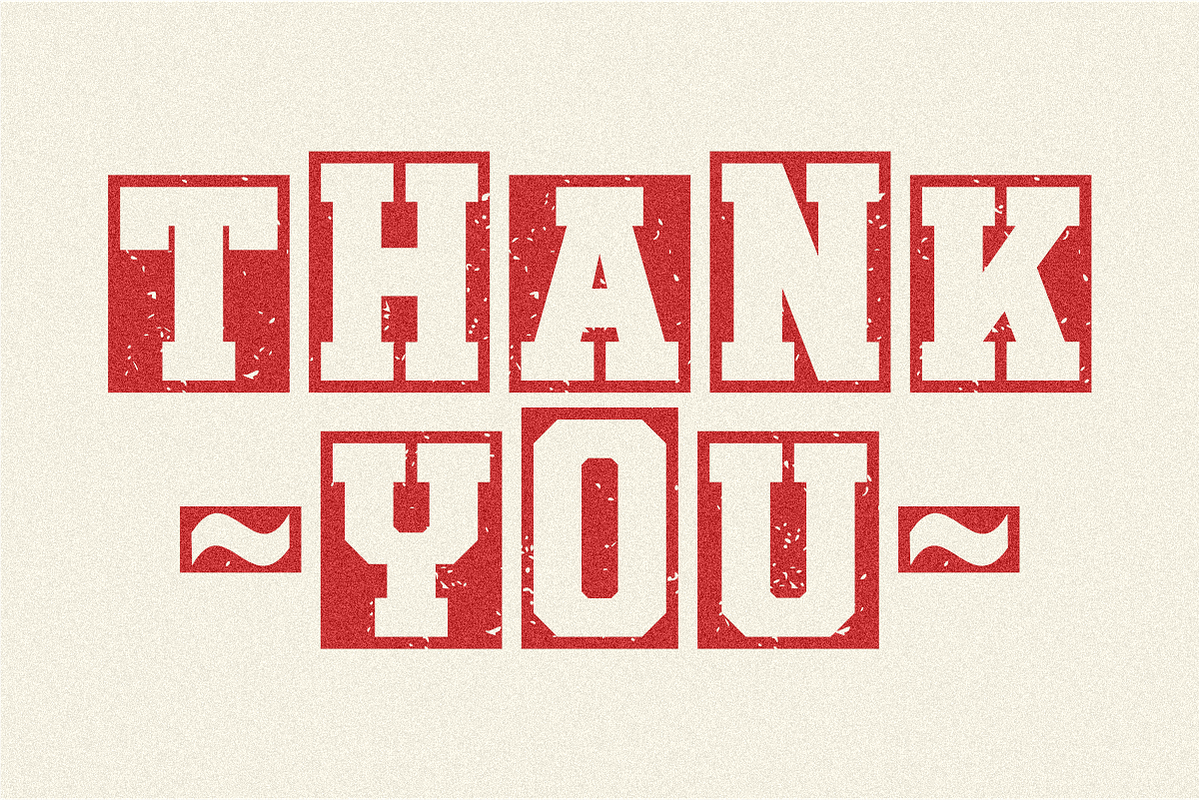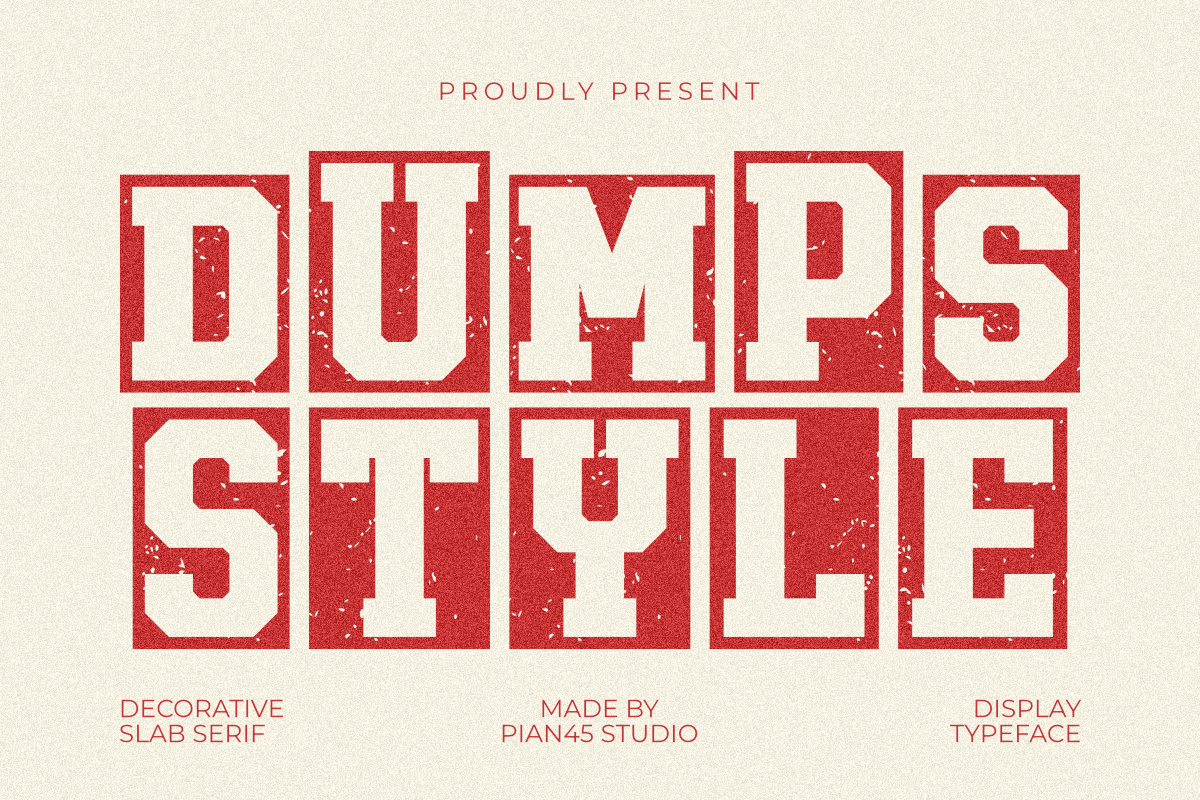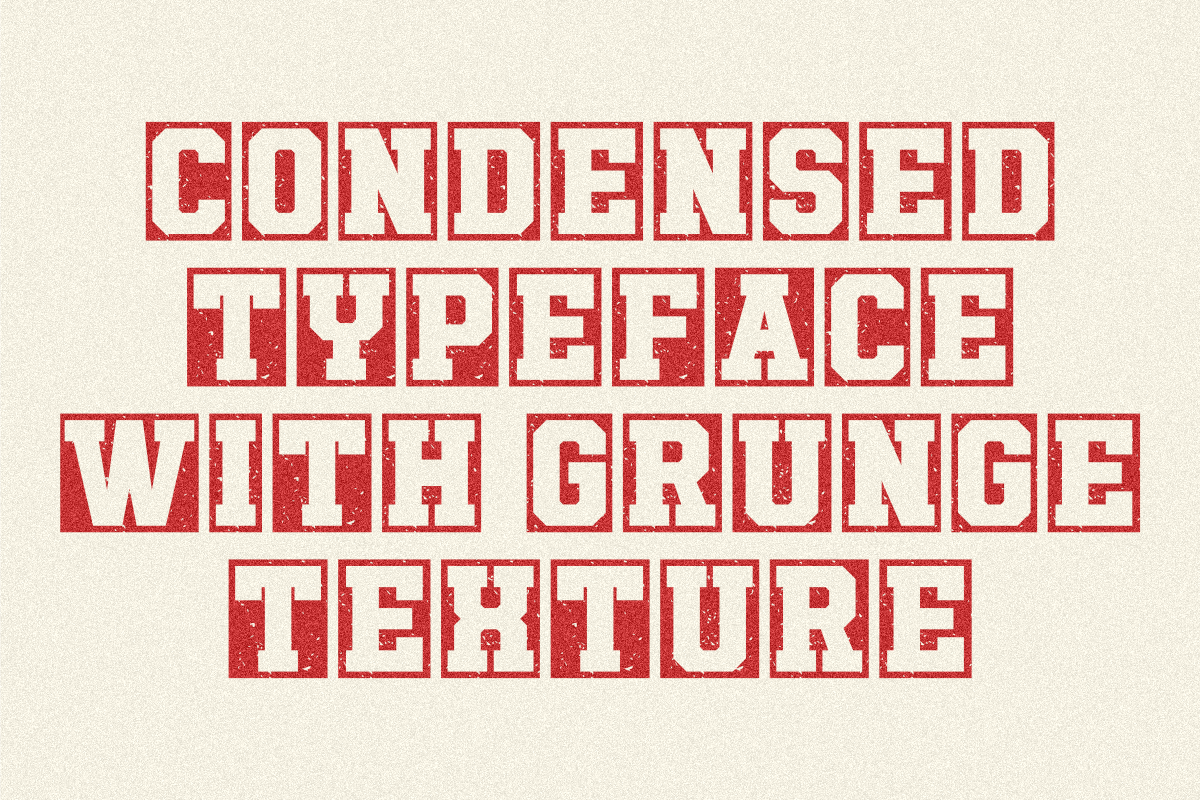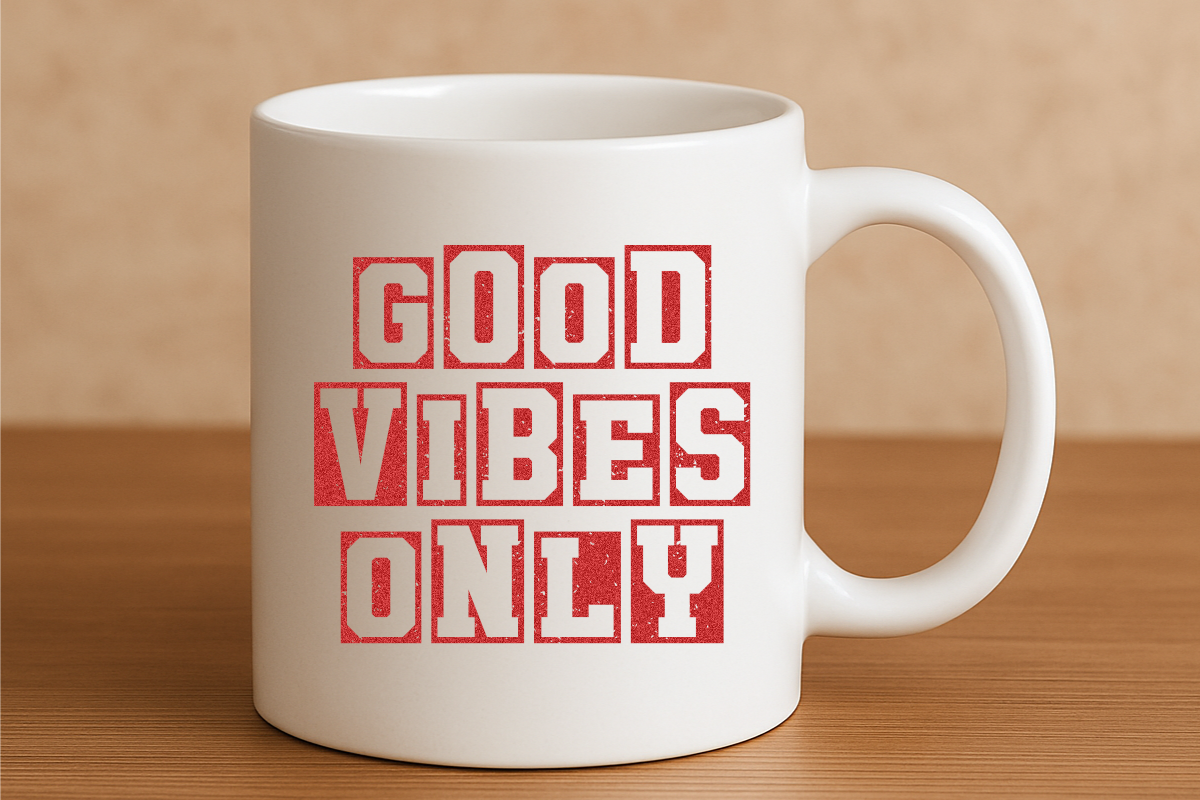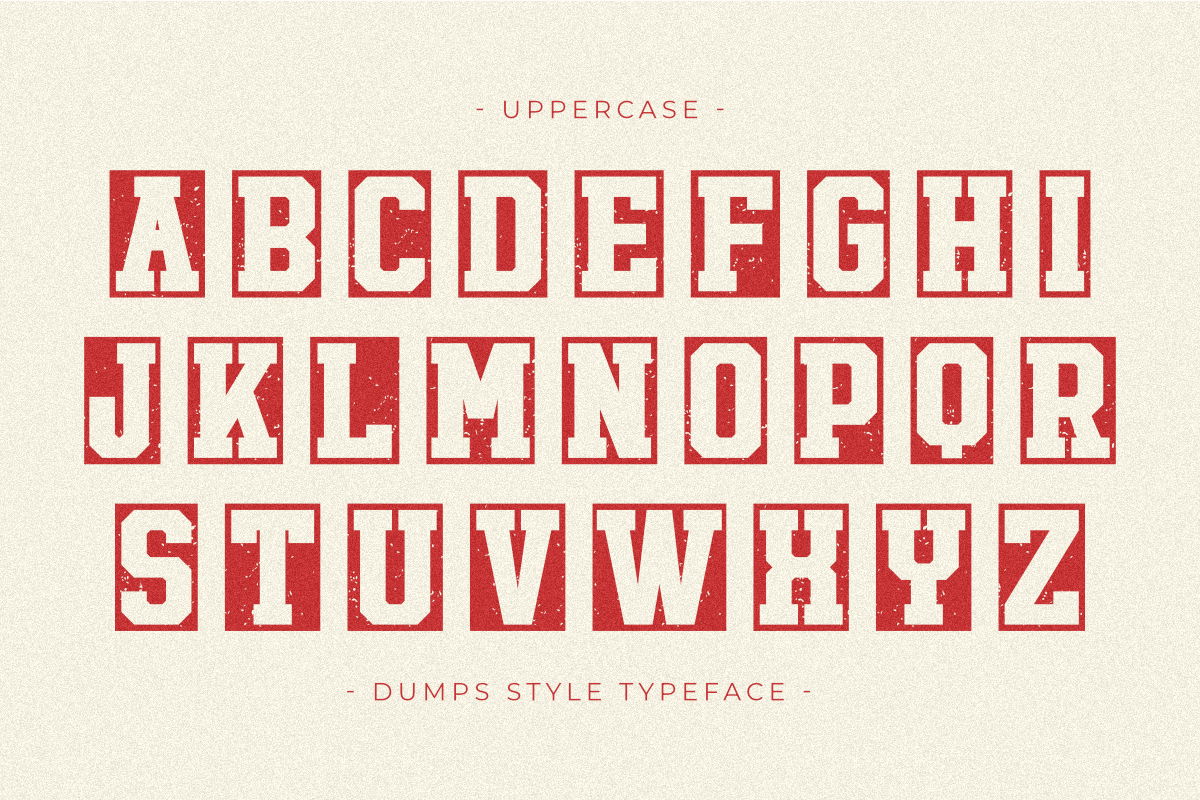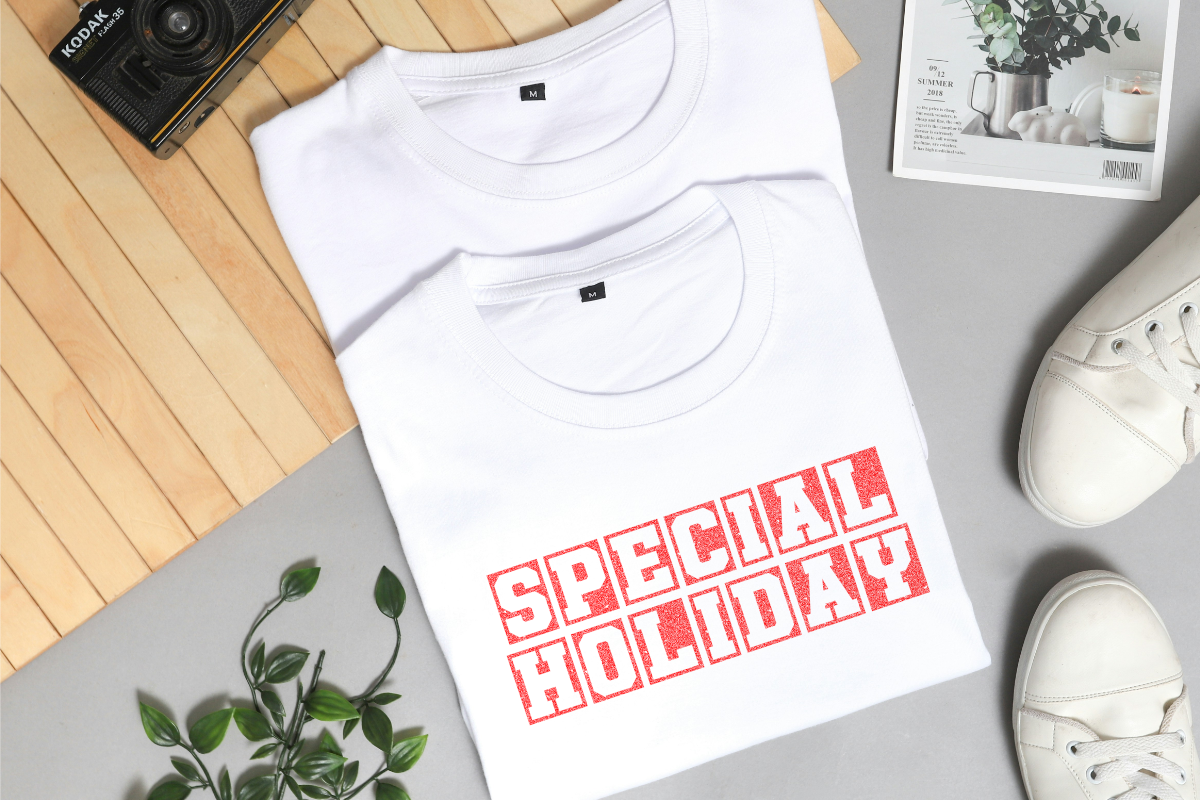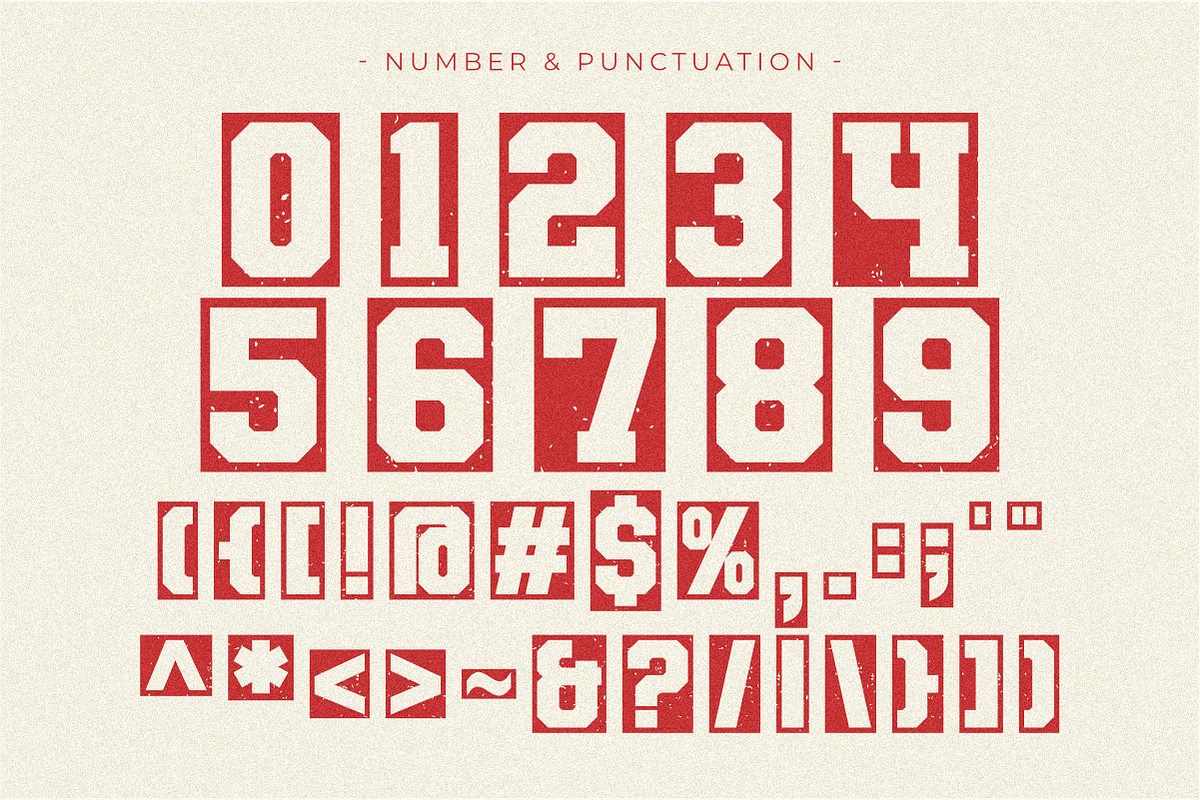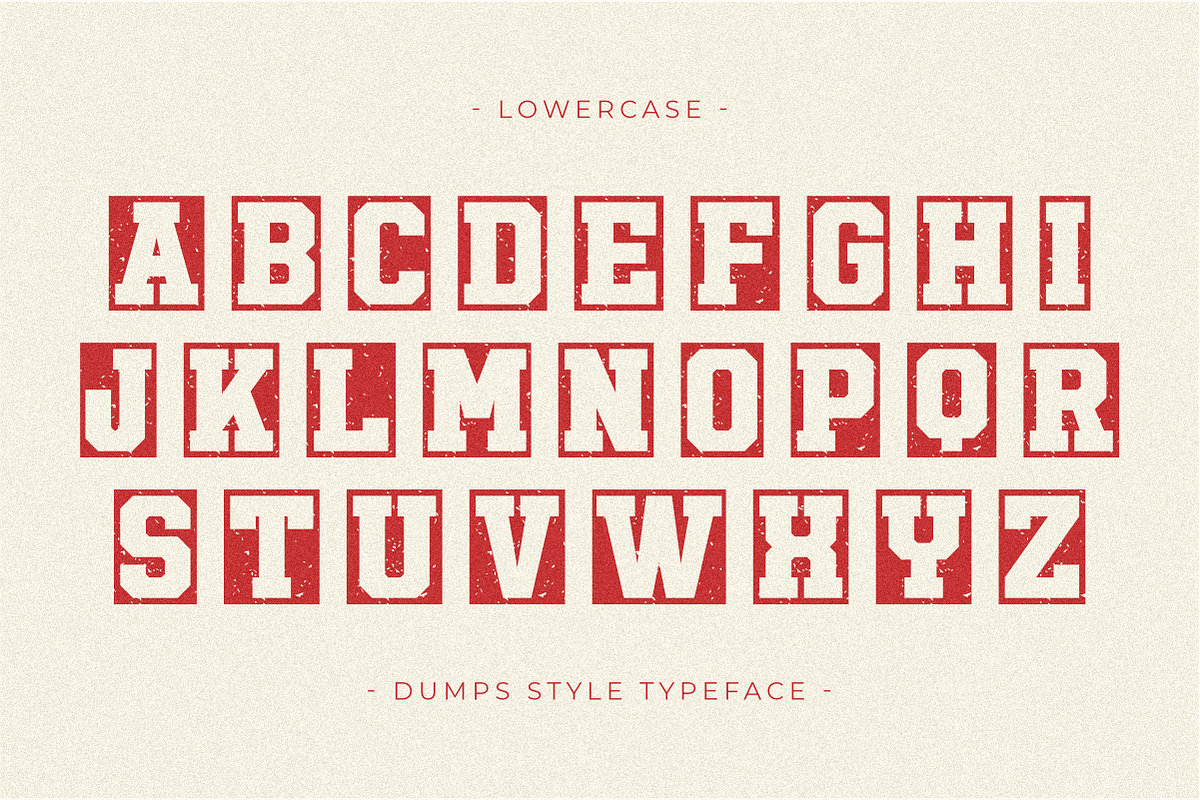
Dumps Style - Display Font
Dumps Style is a commanding and rugged Decorative Slab Serif font designed for maximum visual impact. This bold Display Typeface features a heavy, blocky all-caps structure with a distinct distressed and gritty texture. It is the perfect choice for vintage sports branding, collegiate-style apparel, retro posters, and high-energy headlines. Whether you are designing team logos or urban streetwear, Dumps Style delivers an authentic, old-school aesthetic that demands attention and provides a powerful, fearless presence.